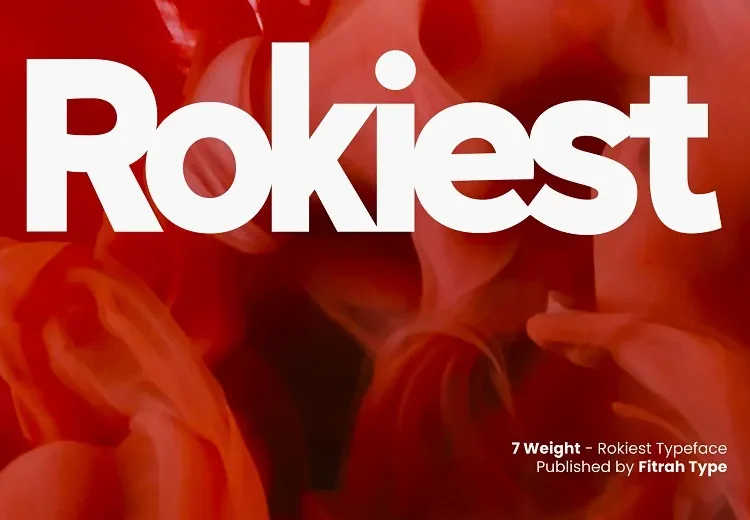
Rokiest Font Family
Rokiest is a versatile sans-serif font family featuring seven distinct styles. Crafted with simplicity and elegance in mind, Rokiest embodies a minimalistic aesthetic that is perfect for a range of applications. Its clean lines and refined design make it well-suited for use in large sizes, ensuring clarity and impact in any design context.
Whether you’re working on branding, advertising, or any project that requires a sophisticated and modern typeface, Rokiest delivers with its understated charm and professional look. Its adaptability across different sizes and uses makes it a valuable addition to any designer’s toolkit.